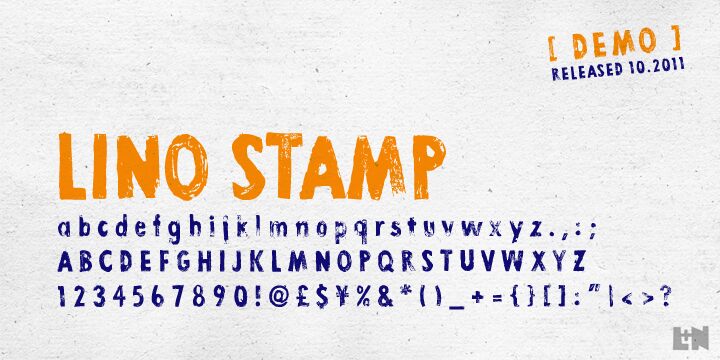
Lino Stamp Bold by Ursula Hitz is a free eroded display font with uneven letters and the blunt force of a heavily inked stamp. Scraped patches and ragged edges vary across the forms, giving the lettering a battered surface.
That rough imprint suits protest posters and punk merchandise, but it can also lend food packaging or music artwork a hand-marked edge. Designers working with underground culture, vintage industrial themes, or deliberately imperfect branding will find its worn texture especially relevant.